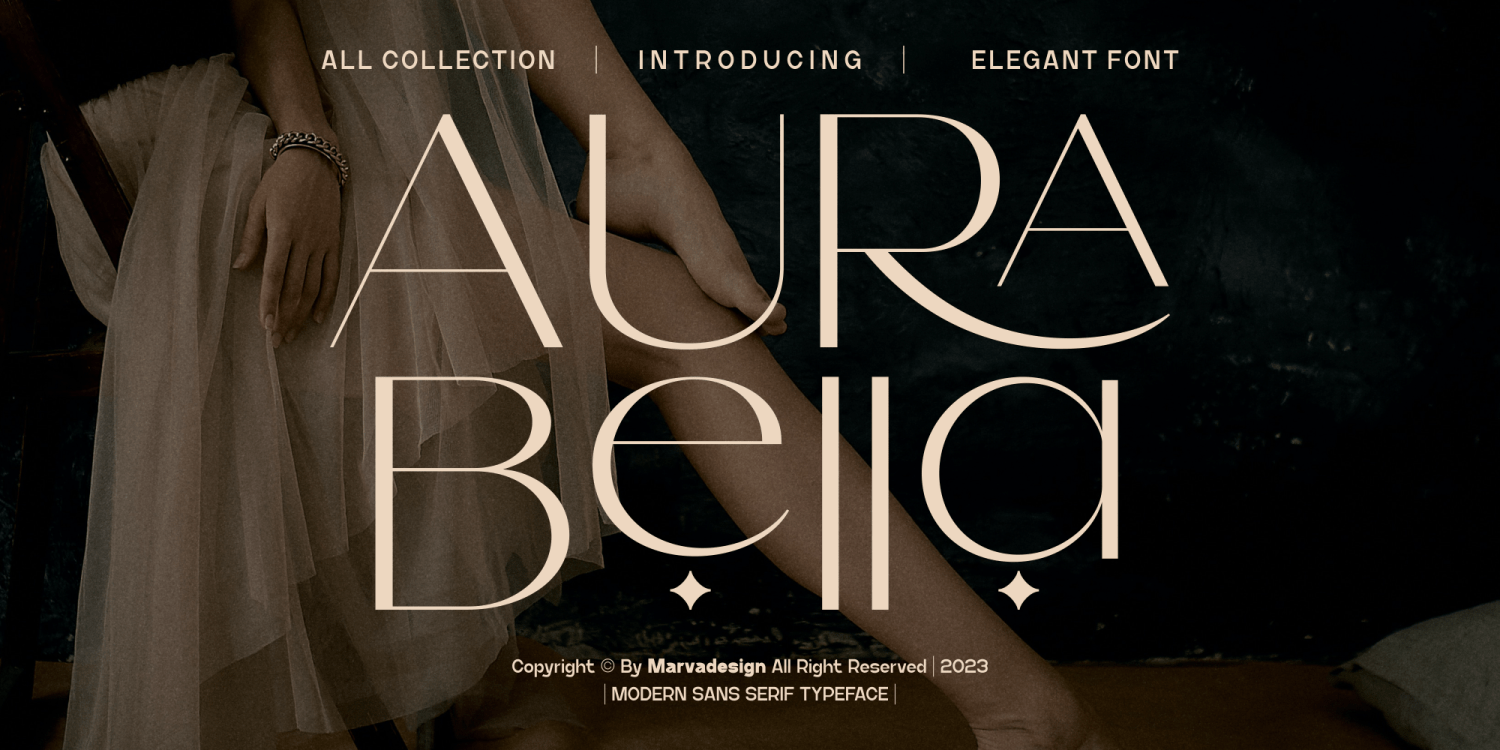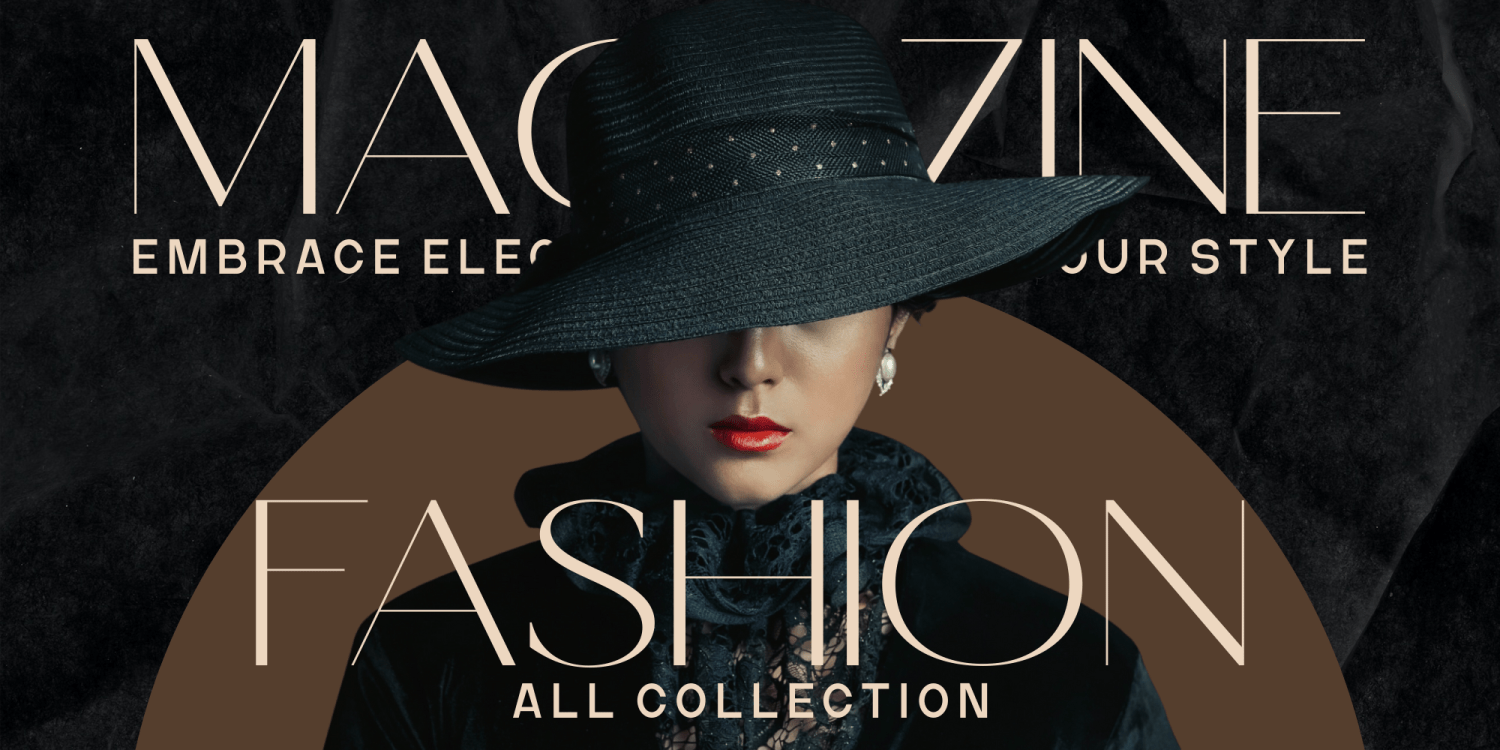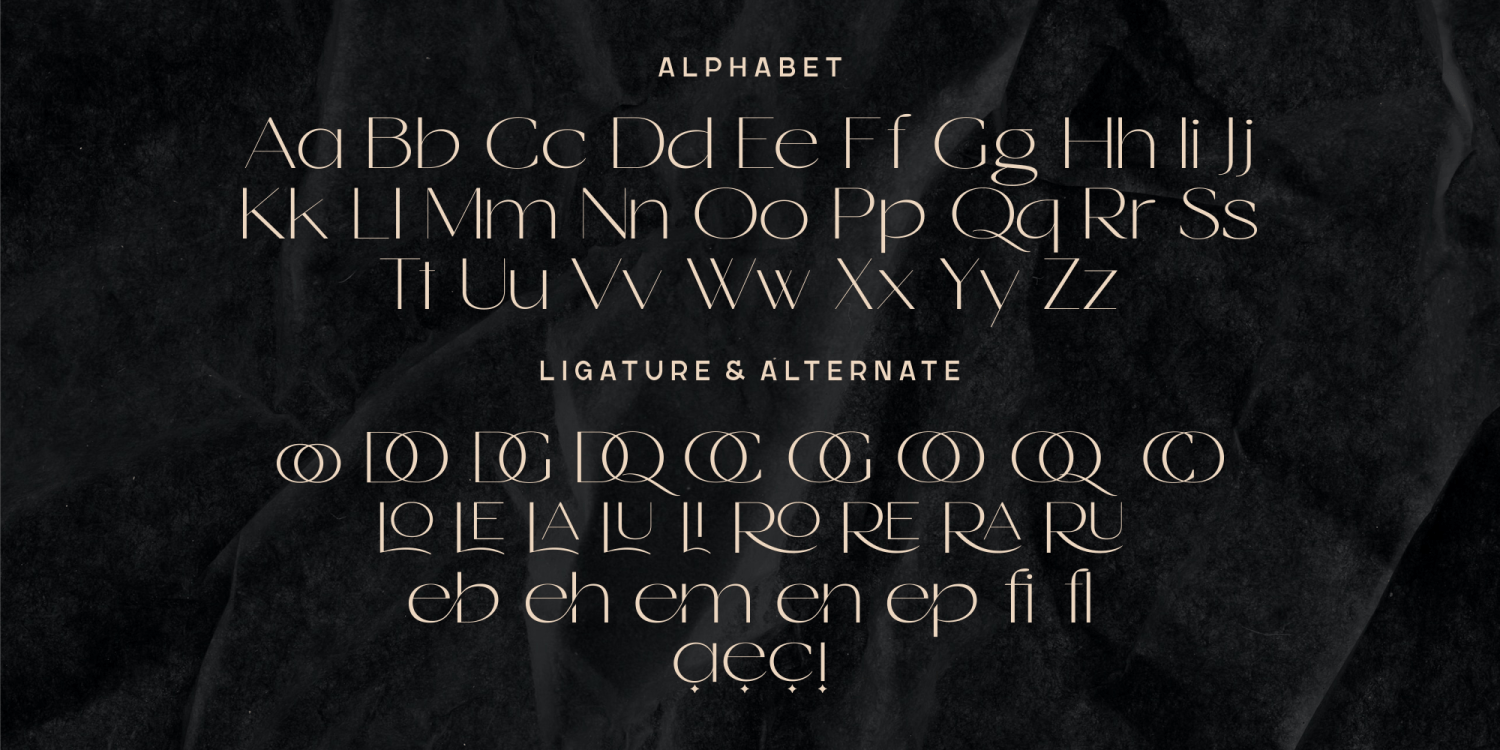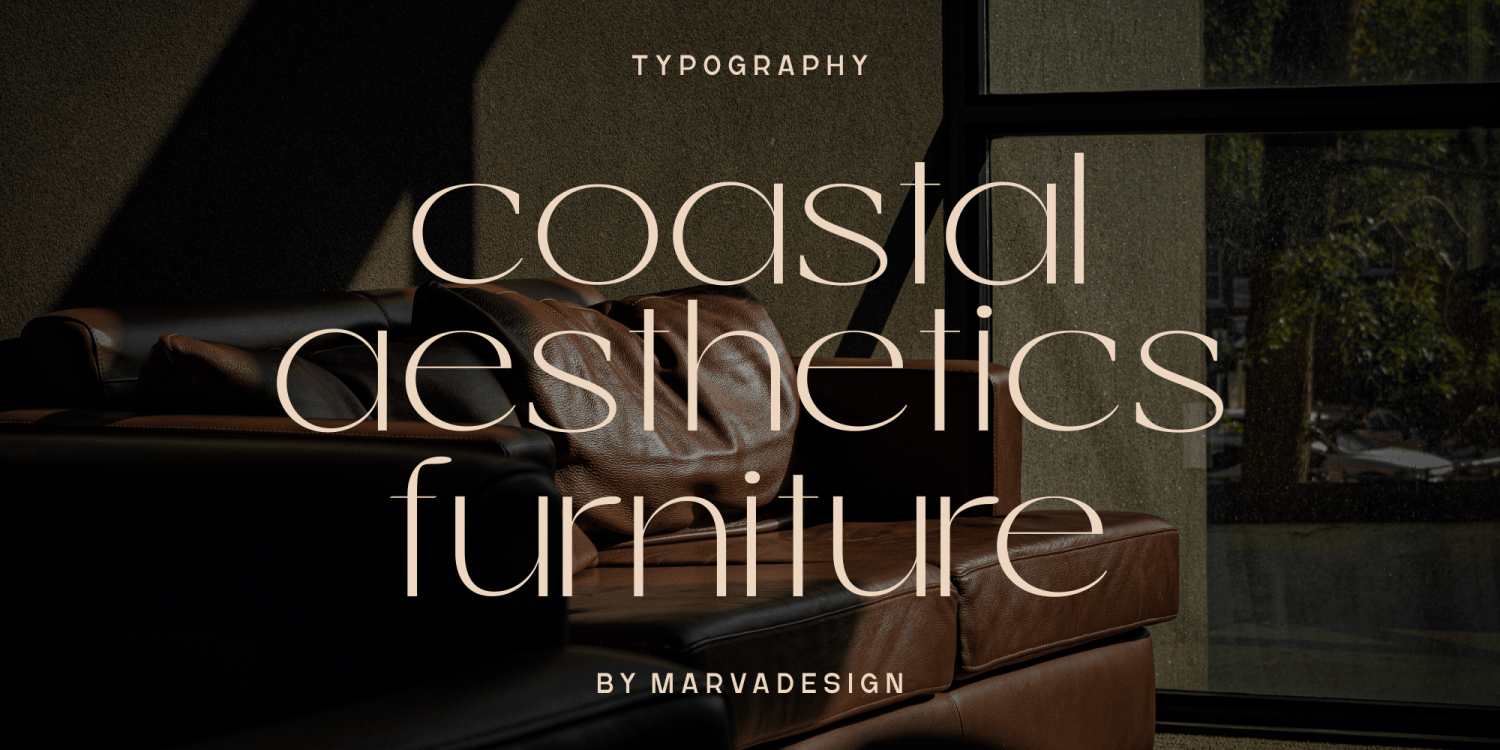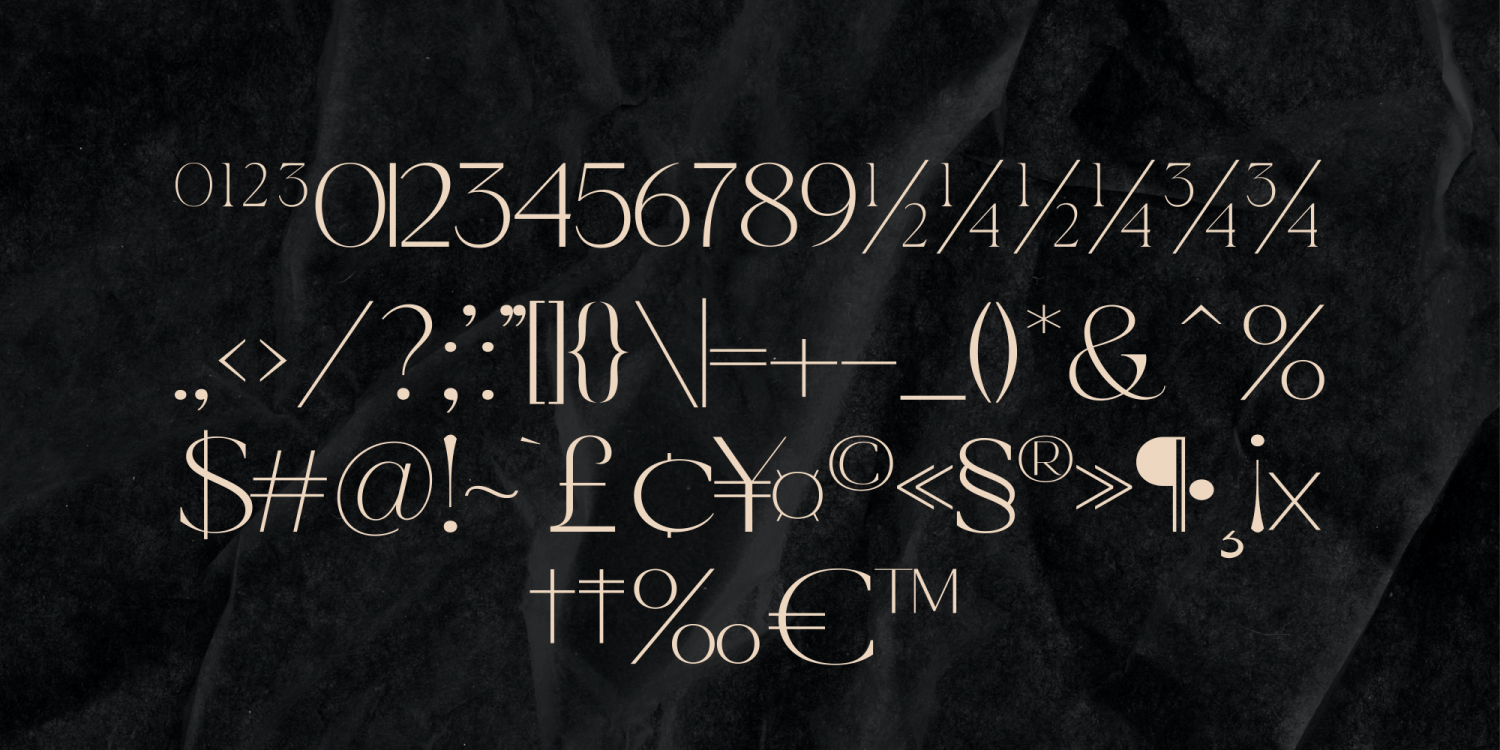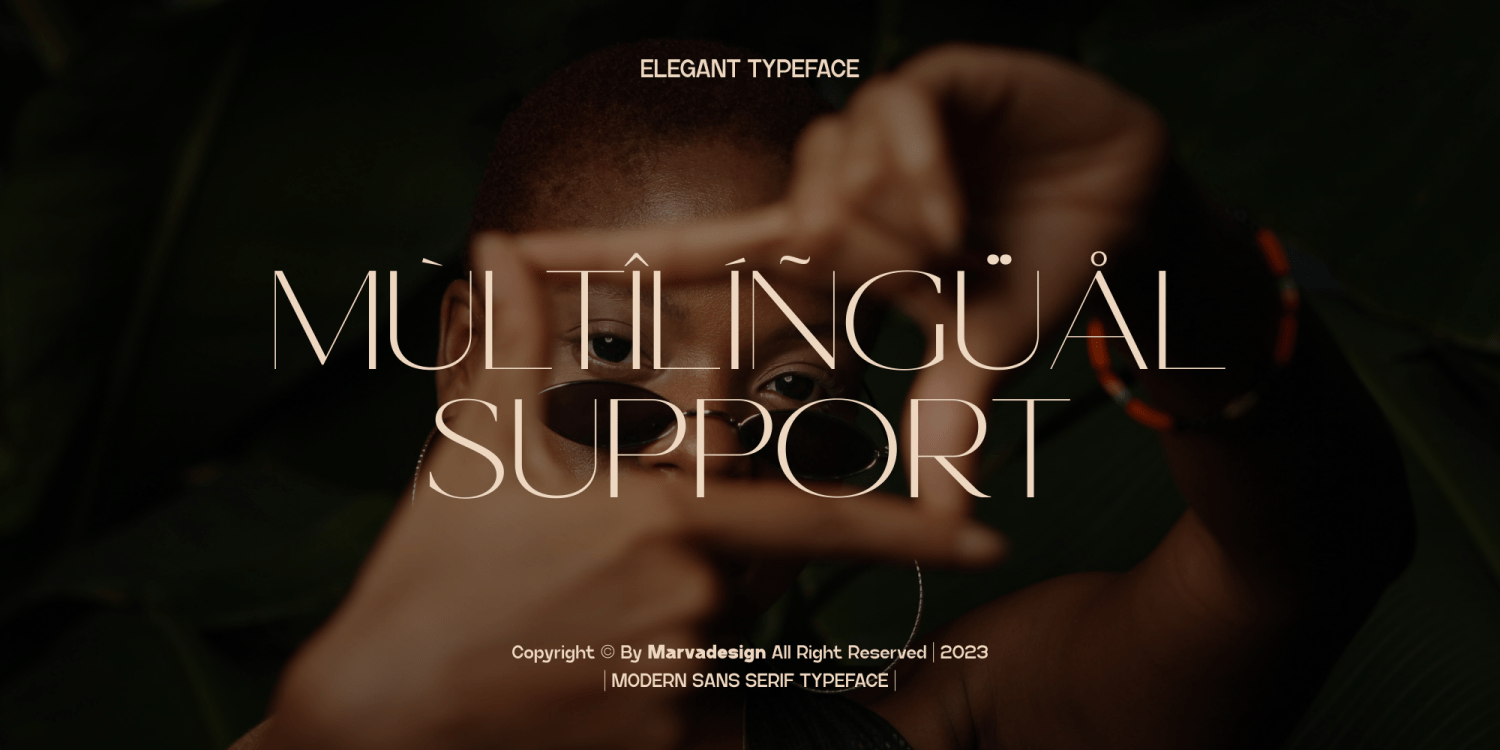
Aura Bella
Font Family by Marvadesign
Immaculately crafted, the font exudes elegance with its graceful curves and refined strokes. Its sans-serif simplicity belies a depth of beauty, effortlessly captivating the eye with its understated sophistication. Each letter stands as a testament to meticulous design, embodying a timeless style that transcends fleeting trends. This font beckons with an allure that is both classic and contemporary, inviting viewers into a world where every word is adorned with exquisite grace.